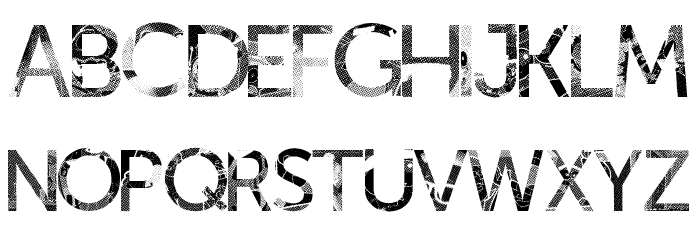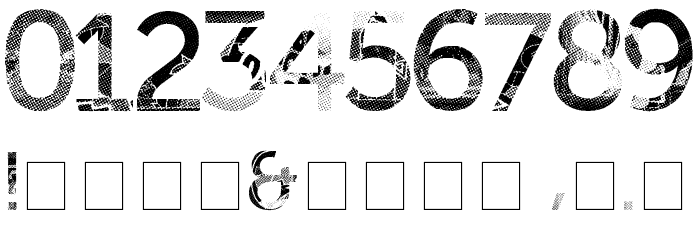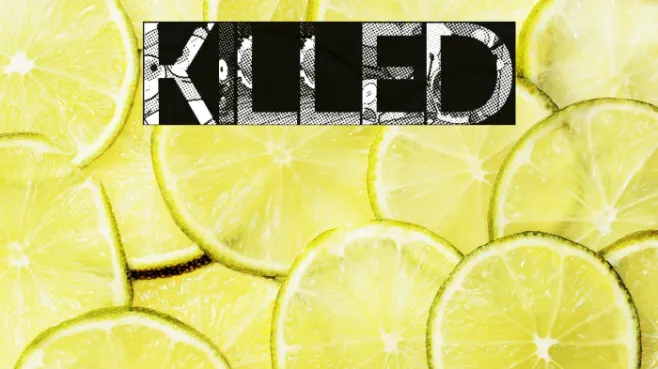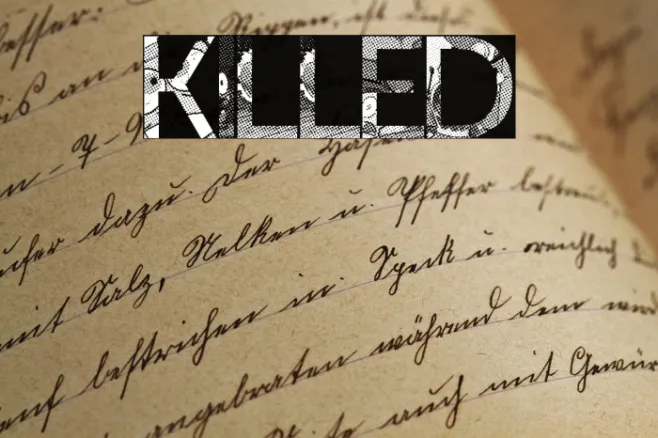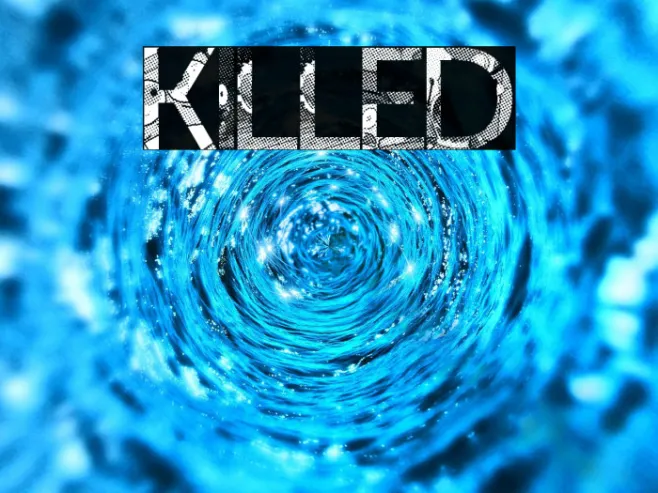
KillEd Font
This font features a bold and distressed style, characterized by its textured appearance that mimics a worn or eroded effect. The uppercase letters are bold and impactful, making a strong visual statement. The numbers and special characters follow the same distressed pattern, adding to the cohesive look of the font. Its unique style is reminiscent of vintage or industrial design, with a modern twist. The font's irregular texture gives it a dynamic and edgy feel, suitable for projects that require a bold and unconventional aesthetic.
A bold, distressed font with a textured, worn appearance.
- Proposed Projects: Ideal for posters, album covers, branding, and any design requiring a bold, vintage-industrial look.
- Overall Style: Vintage, Industrial